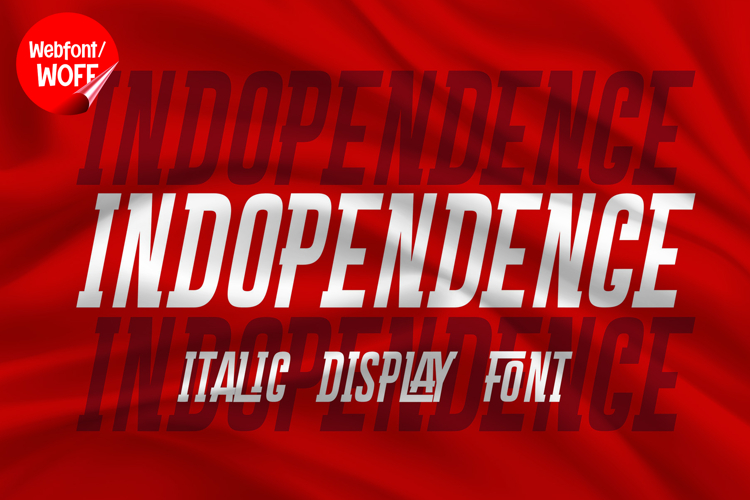
Indopendence | Sport Futuristic Webfont for Energetic Web
Indopendence is a sport futuristic webfont designed to deliver energy, speed, and a bold modern aesthetic for website design. Inspired by athletic branding, racing visuals, and advanced digital styles, this font features sharp angles and dynamic letterforms that create a strong sense of motion. It is an excellent choice for projects that require a powerful, fast, and forward-thinking typographic identity.
Indopendence includes a complete set of uppercase characters designed with a futuristic sports-inspired structure. The letterforms are crafted with bold lines and angular cuts, giving the font a sleek and aggressive appearance. These characteristics make it ideal for headlines, banners, hero sections, and featured content where strong visual impact is essential.
In addition to letters, the font includes numbers and punctuation, allowing flexible usage across various parts of a website. It works well for sports branding, automotive content, esports platforms, gaming interfaces, and promotional campaigns. Each character maintains a consistent sport-futuristic style, ensuring a cohesive and unified visual identity throughout the layout.
With multilingual support, Indopendence includes a wide range of accented characters, making it suitable for international websites and global audiences. This allows content to be displayed clearly across different languages while maintaining the modern and energetic aesthetic.
The sport futuristic style of Indopendence makes it especially suitable for fitness websites, sports teams, racing brands, technology startups, and digital portfolios. Its dynamic and bold design adds intensity and motion, helping websites stand out in competitive digital environments. The sleek structure also enhances branding that focuses on performance, innovation, and speed.
Despite its strong and angular appearance, Indopendence is designed with readability in mind. The spacing and proportions are carefully balanced to ensure clarity, particularly in display sizes. This makes it effective for impactful headings and short content elements where both style and usability are important.
Indopendence is a webfont that combines futuristic aesthetics with sports-driven energy and modern digital performance. Its sharp forms, bold structure, and dynamic flow create a distinctive typographic presence that enhances website design. For projects that require a fast, powerful, and visually engaging font, Indopendence offers a reliable and striking solution.